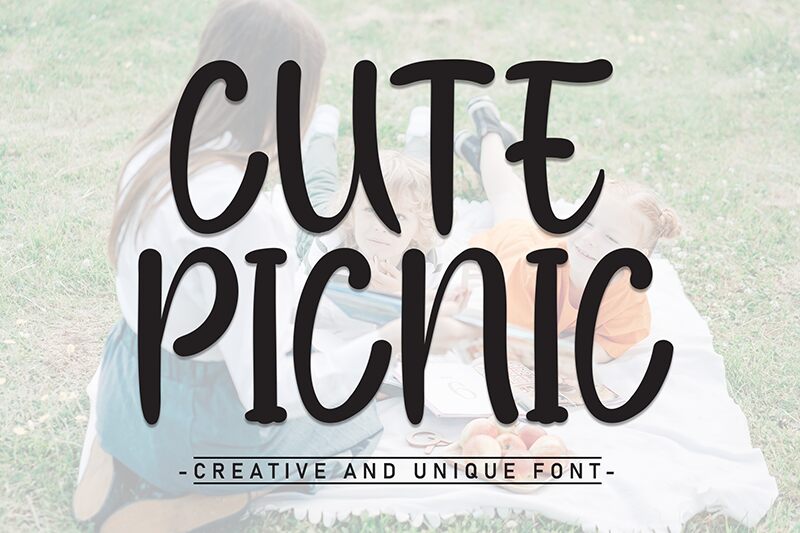
Cute Picnic
Cute Picnic font by Andi Moz is a free brush typeface with a casual, lively tone. Its brush strokes add a gentle aesthetic to the modern design, making it fun and approachable. The style and character bring attention to any project while maintaining friendly vibes.
Use this font in branding designs, book covers, magazines, and business cards. It works well in headings for websites and printed materials like postcards or invitations. Incorporate this typeface into social media posts, apparel items, product packaging, or advertising designs.